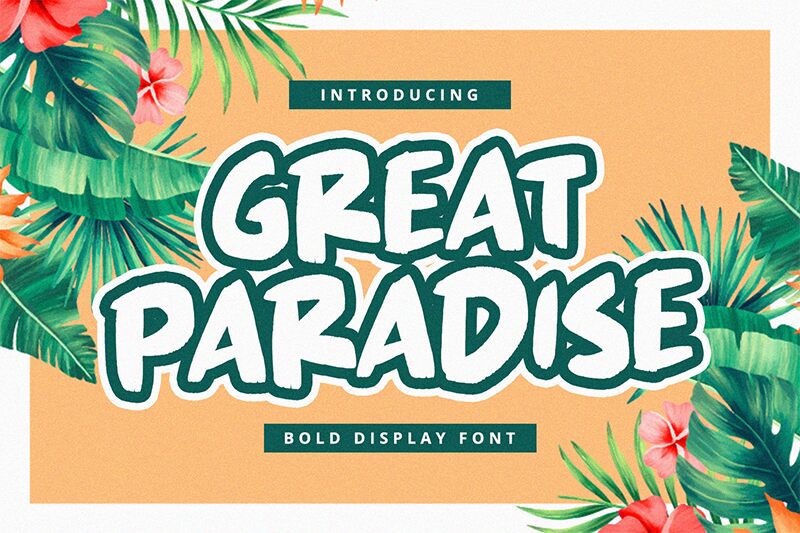
Great Paradise
Great Paradise, the captivating brush font created by Alpaprana Studio, exudes an irresistible energy that is perfect for a wide range of projects. With its extra-bold weight, this font commands attention and adds a touch of boldness to any design. Its handcrafted brush style brings a unique and organic feel to various creative ventures.
Whether you're creating eye-catching logos, powerful headlines, dynamic posters, or stylish merchandise, Great Paradise is the ideal choice to make your designs stand out from the crowd.
Let your imagination run wild with this extraordinary typeface!